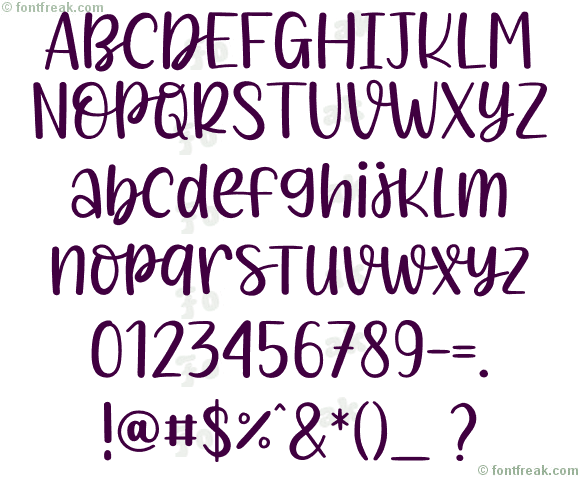
Finesweeper
Finesweeper is a captivating display font designed by Mukhlis Muhammad, classified under the variatype category. This unique typeface features a playful and informal style, characterized by its bold strokes and fluid curves. The Finesweeper font exhibits a moderate stroke weight, ensuring visibility while maintaining a friendly aesthetic. The letterforms have a slight contrast that adds a touch of elegance, complemented by generous spacing that enhances legibility and overall appeal. Decorative elements are subtly integrated, giving the font a whimsical charm that makes it stand out.
This font is versatile and ideal for a variety of creative projects. It shines in wedding invitations, where its friendly and inviting style can set the tone for a joyous occasion. Finesweeper is also an excellent choice for movie posters, capturing attention with its bold and dynamic presence. Restaurant menus can benefit from its approachable design, making the dining experience feel more welcoming. Additionally, it works well for marketing materials aimed at small businesses, helping to convey a sense of personality and uniqueness.
Targeting graphic designers, small business owners, and content creators, Finesweeper offers a fresh approach to typography. Its distinctive character allows users to express creativity while maintaining professionalism. The font's free availability adds to its appeal, making it accessible for anyone looking to enhance their projects.
In a sea of typefaces, Finesweeper stands out due to its blend of playfulness and elegance. The combination of its stylish design and usability across various contexts makes it a must-have for those seeking to make a memorable impact. For those interested, a Finesweeper font free download is available, providing an excellent opportunity to incorporate this delightful typeface into your creative endeavors.